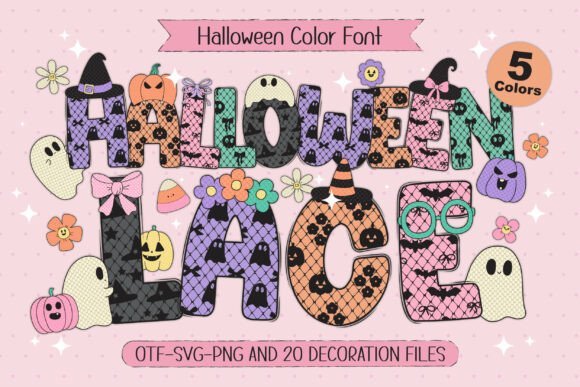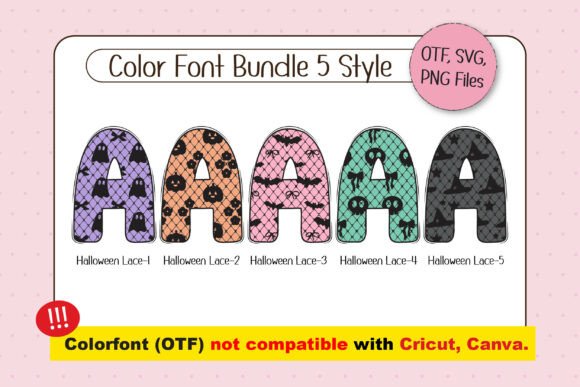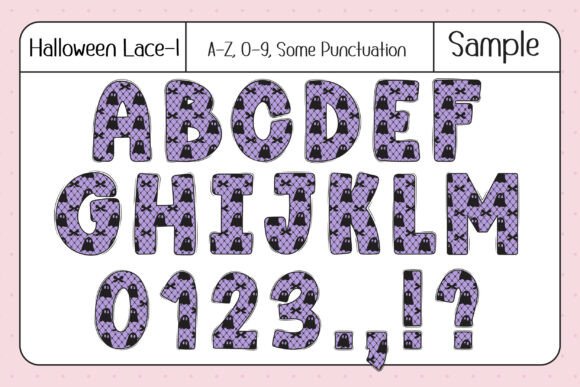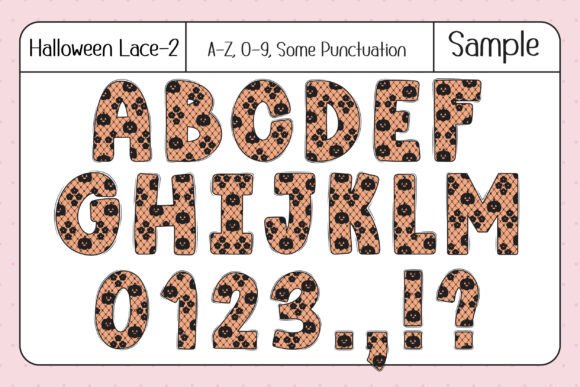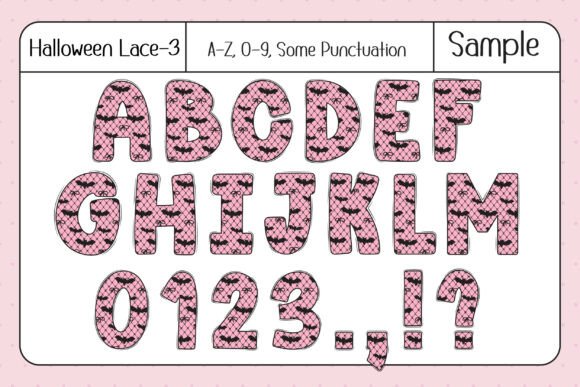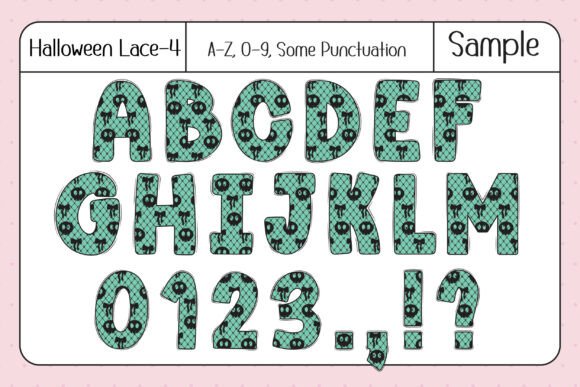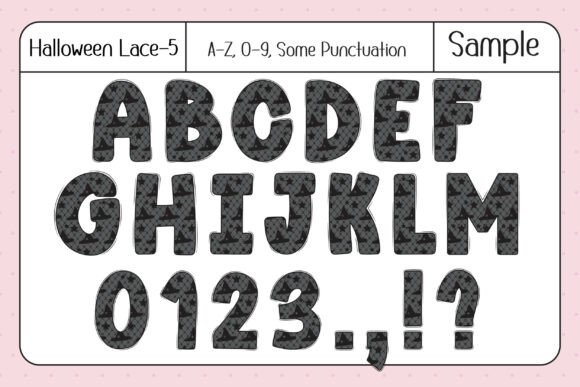
Halloween Magic at Your Fingertips
As the spooky season approaches, designers are on the hunt for the perfect font to capture the whimsical essence of Halloween. It’s that moment when the lights dim, and you start brainstorming ideas for your next project – a spooky yet sweet poster, a playful t-shirt design, or a hauntingly beautiful invitation. And then, it hits you: the perfect font to bring your vision to life.
Enter the enchanting Halloween Lace Font, a color font that weaves together the classic elements of Halloween with the delicate charm of lacework. With five unique color styles and twenty matching doodles, this font is a treasure trove of creative possibilities. Whether you’re a seasoned designer or a DIY enthusiast, Halloween Lace Font is the perfect addition to your toolkit, offering a touch of spooky elegance to your designs.
Halloween Lace Font Key Features
- Unique Characteristics: Intricate lace patterns, gothic-inspired design, and spooky textures
Halloween Lace Font Review
I recently had the chance to work with the Halloween Lace Font, and I’m excited to share my honest review with you.
- The intricate, lace-like design is perfect for creating spooky and whimsical designs.
- The font is highly customizable, allowing you to adjust the color, size, and spacing to fit your needs.
- The font is suitable for a wide range of projects, from invitations and posters to digital graphics and social media posts.
- The Halloween Lace Font is a great choice for designers who want to add a touch of elegance and sophistication to their spooky designs.
- The font may be too intricate for some projects, making it difficult to read or use for body text.
- The font is not suitable for projects that require a bold, sans-serif font.
I was impressed with the Halloween Lace Font’s unique design and versatility. While it has some limitations, it’s a great choice for designers who want to add a touch of sophistication and whimsy to their spooky projects. With some careful planning and customization, the Halloween Lace Font can be a real showstopper.
Halloween Lace Font: A Practical Application Guide
Common Use Cases for Halloween Lace Font
The Halloween Lace Font is perfect for creating spooky and eerie designs, such as invitations, posters, and social media graphics. It’s also great for adding a touch of whimsy and fantasy to your designs. Use it to create a haunted house theme, a witch’s brew, or a graveyard scene.